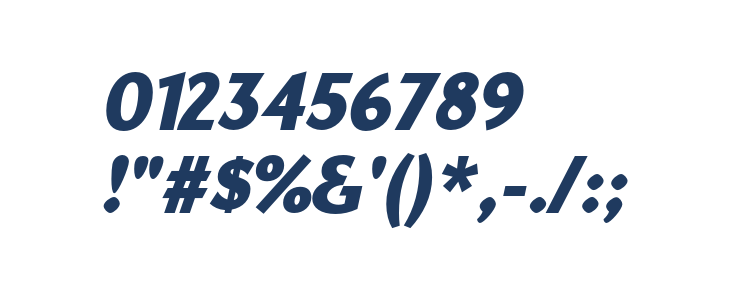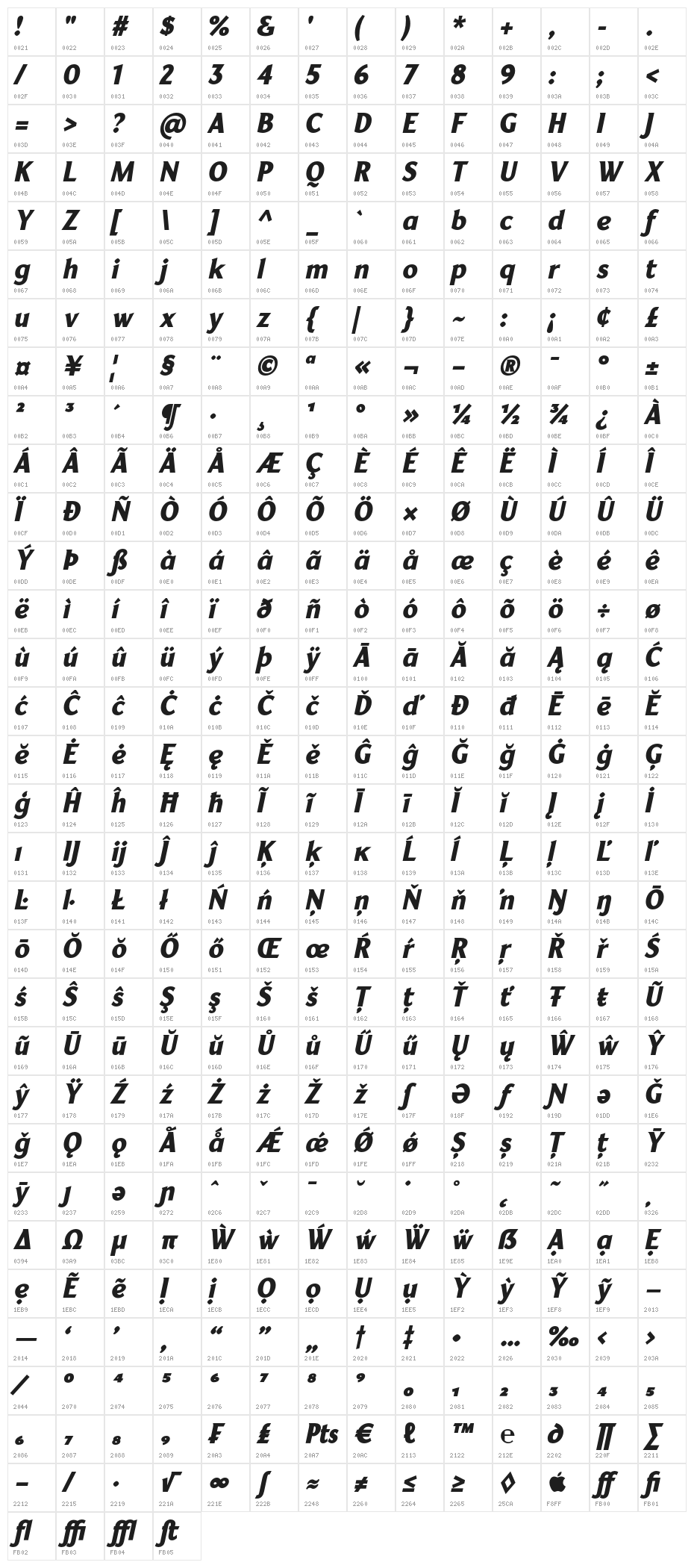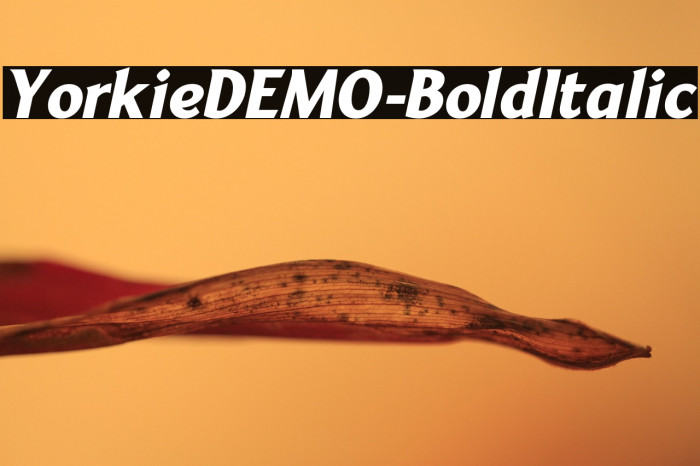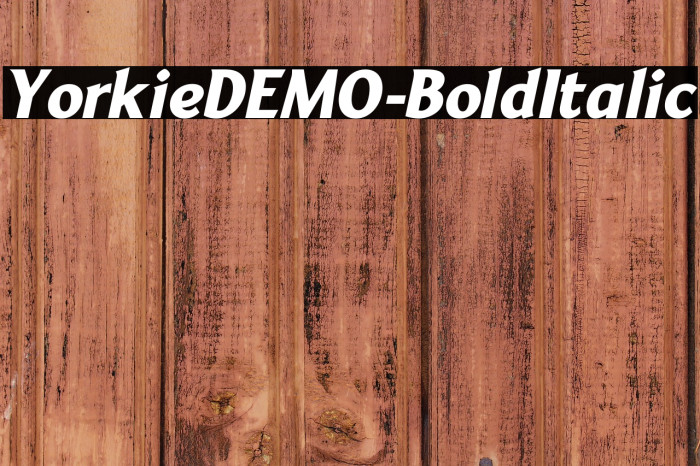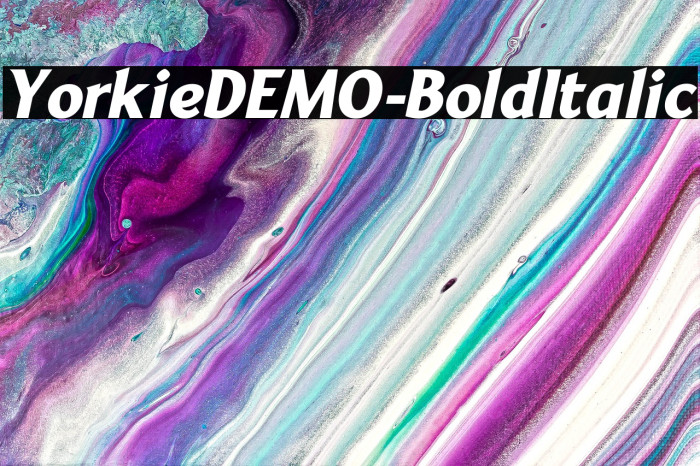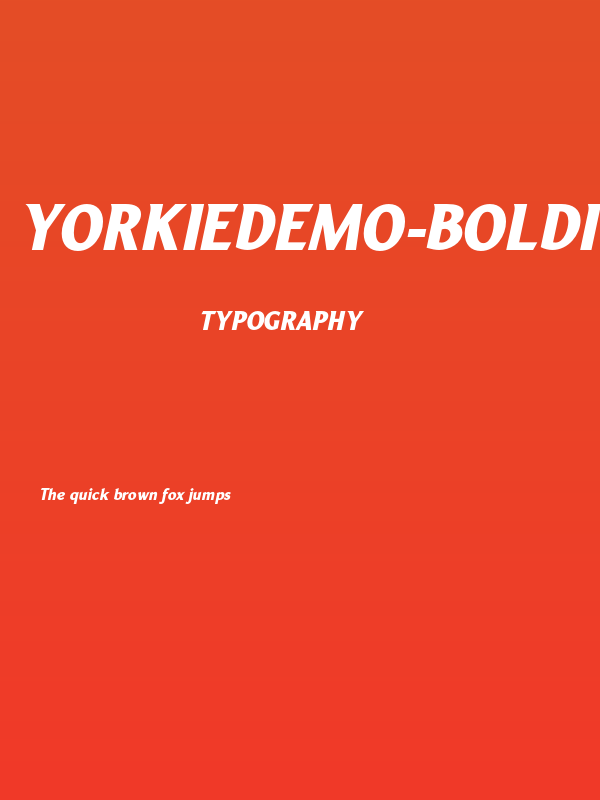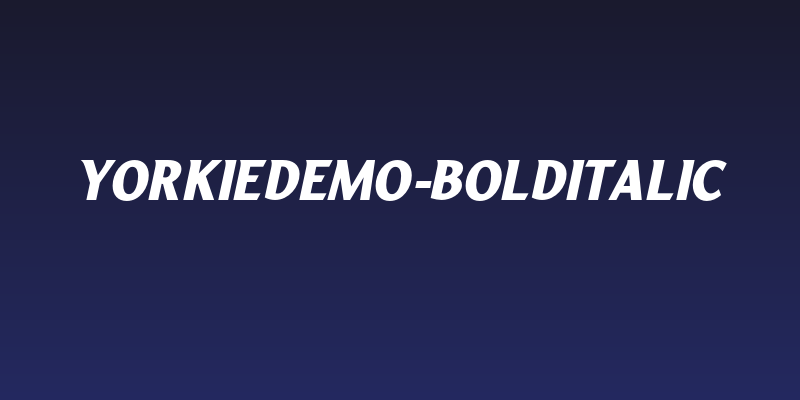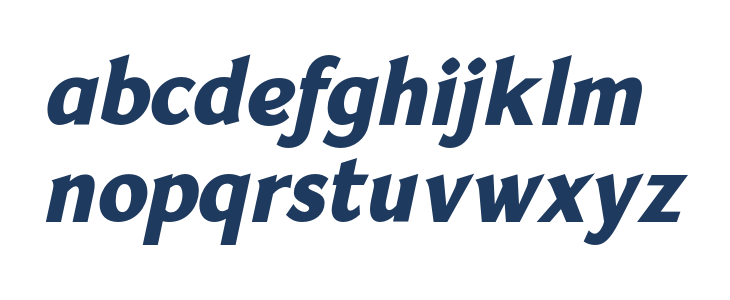
YorkieDEMO-BoldItalic Font
YorkieDEMO-BoldItalic Description
This font exhibits a bold and italicized style, characterized by its strong and dynamic presence. The letters are slightly slanted, adding a sense of movement and urgency. The strokes are thick and consistent, providing a robust and confident appearance. The uppercase letters are prominent and commanding, while the lowercase letters maintain a harmonious balance. The numerals are clear and easily distinguishable, ensuring readability. Special characters are well-integrated, maintaining the overall aesthetic. This font is suitable for making a bold statement in various design contexts.
| Proposed Projects | Ideal for headlines, posters, branding, and advertising where a strong impact is needed. |